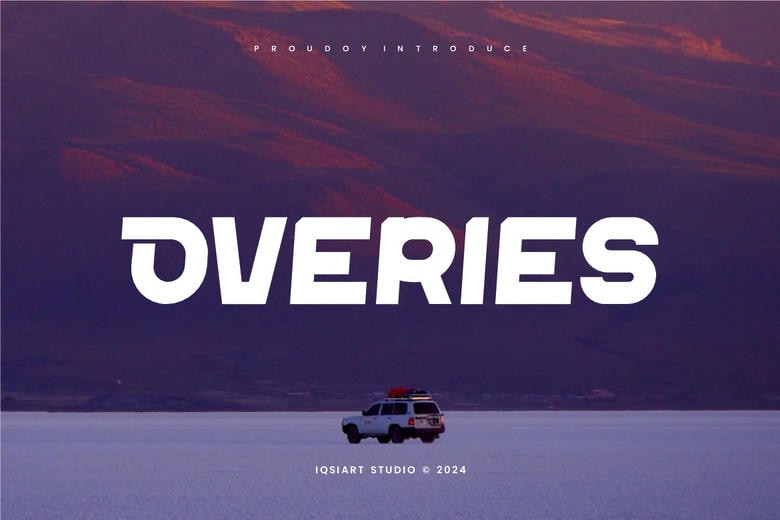
Overies Font
Overies is a modern sans-serif font with clean, straight lines and a simple, easy-to-read style. It works well for a variety of designs, from websites to logos, giving a fresh and professional look. The free version provides all uppercase and lowercase letters and a few special characters too.
Overies Sans Serif Font